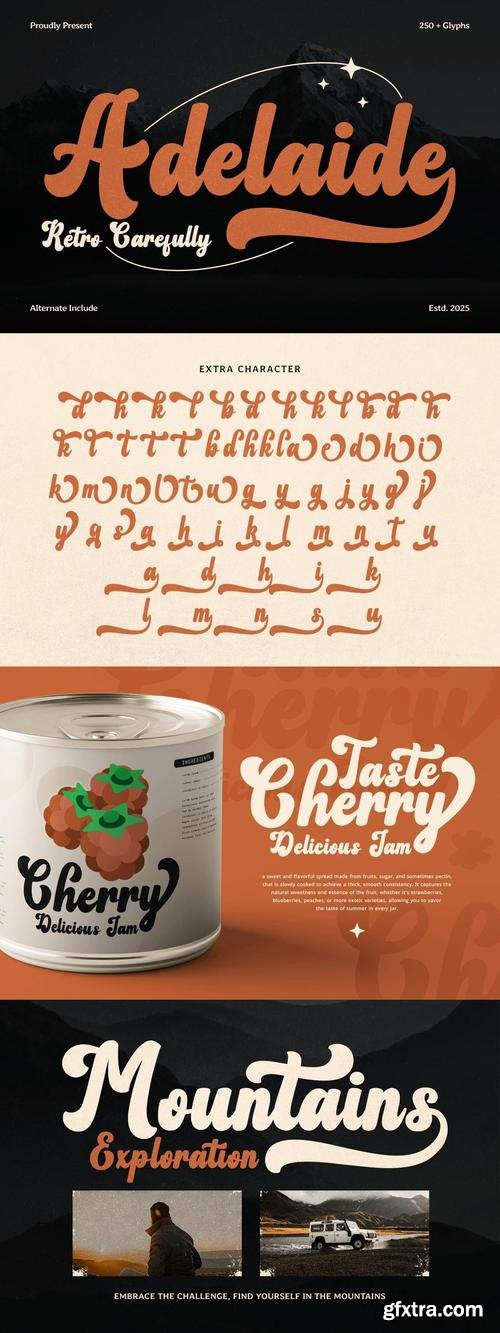
Adelaide – A Timeless Script Handwritten Font for Retro & Vintage Designs
Step into a world of classic elegance with Adelaide, a beautifully crafted script handwritten font inspired by retro and vintage aesthetics. With its fluid strokes and graceful curves, Adelaide brings a nostalgic charm to any project, making it perfect for wedding invitations, greeting cards, branding, and more. Whether you're aiming for an old-school vibe or a touch of sophistication, this font delivers a seamless blend of vintage allure and modern usability.
Designed with creativity in mind, Adelaide comes with a wealth of alternate characters and stylish swashes, giving you the freedom to create truly unique typography. The PUA Encoding ensures effortless access to all special characters, making customization easier than ever. Add personality and flair to your lettering with beautifully flowing alternates that enhance every word with a handcrafted touch.
From logos and business cards to posters and social media graphics, Adelaide elevates your designs with its timeless script style. Its smooth, organic strokes mimic authentic handwriting, making it an ideal choice for designers looking to infuse warmth and character into their work. Whether you're working on a passion project or a professional piece, this font adapts to your creative vision effortlessly.
Sanelma - Brush Script
- Sanelma is a brush script inspired by Hot Rod lettering and sign painting. Sanelma is a very versatile script: It includes two different styles of end swashes, swash caps, small caps, lots of alternate characters and underline option. All in all it has over 1,200 glyphs. Sanelma is bouncy and smooth and has a very organic feel. You have a lot of options to customize it and that makes it perfect for logos, packages and titles.